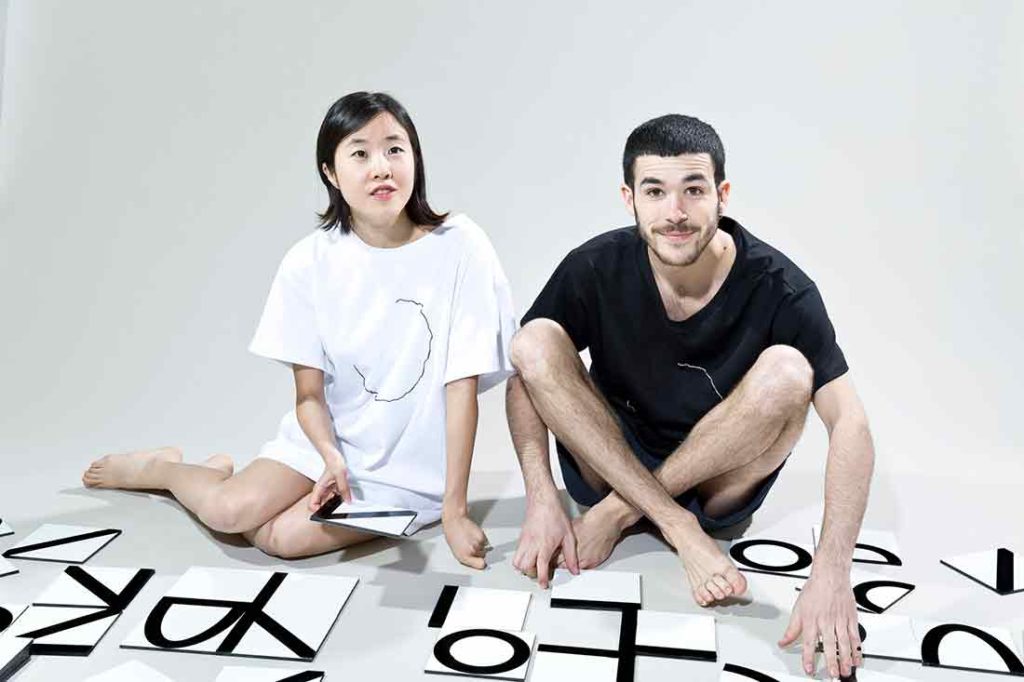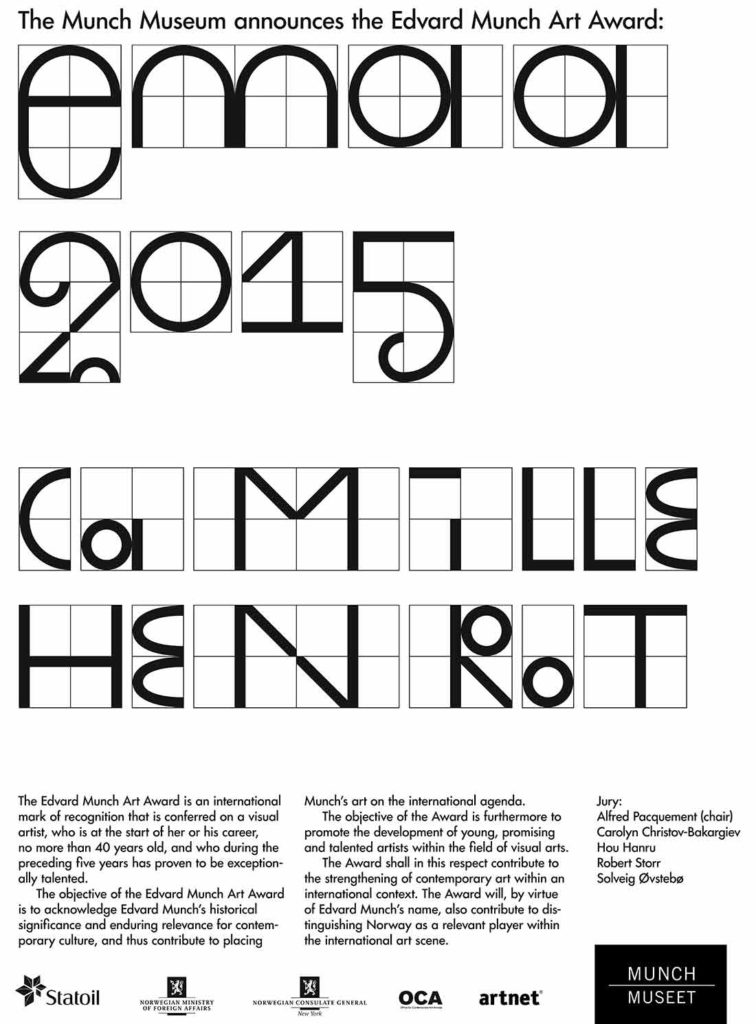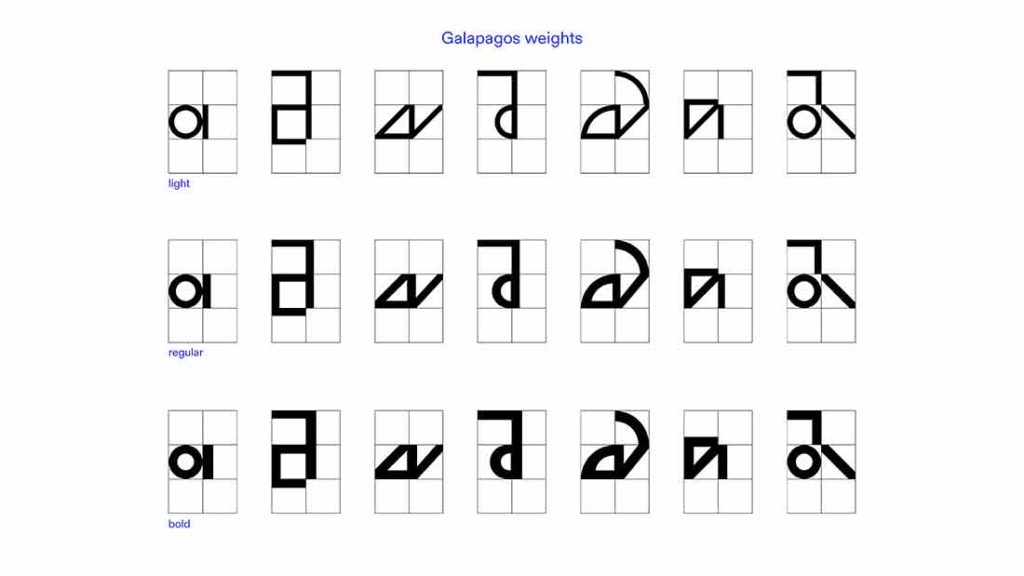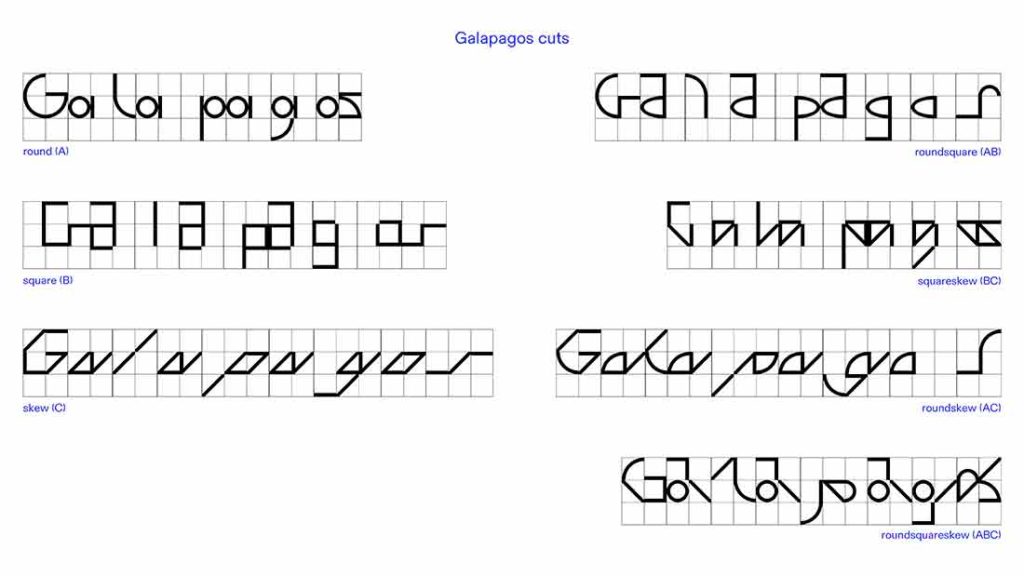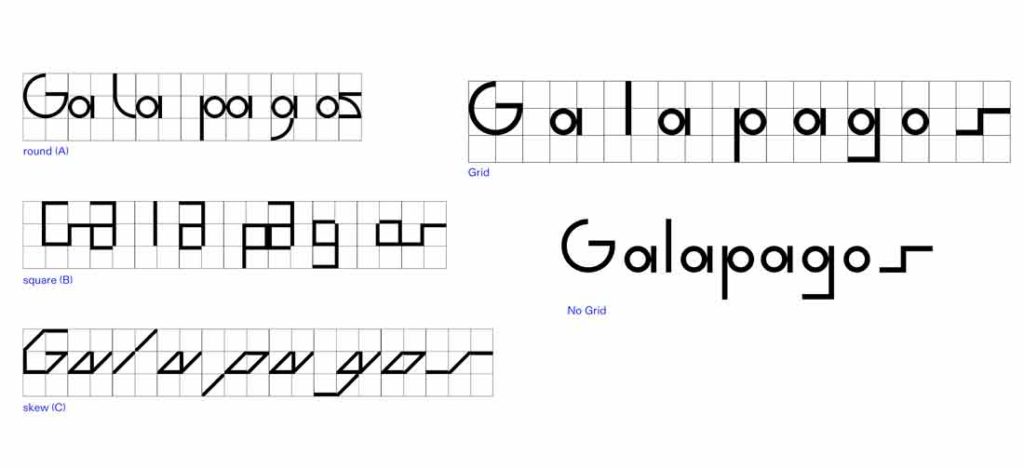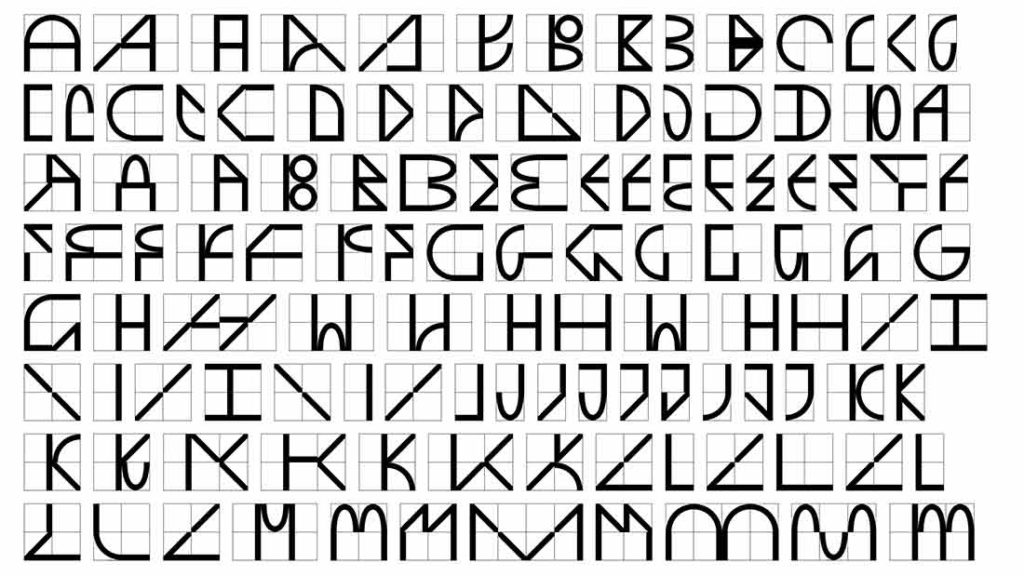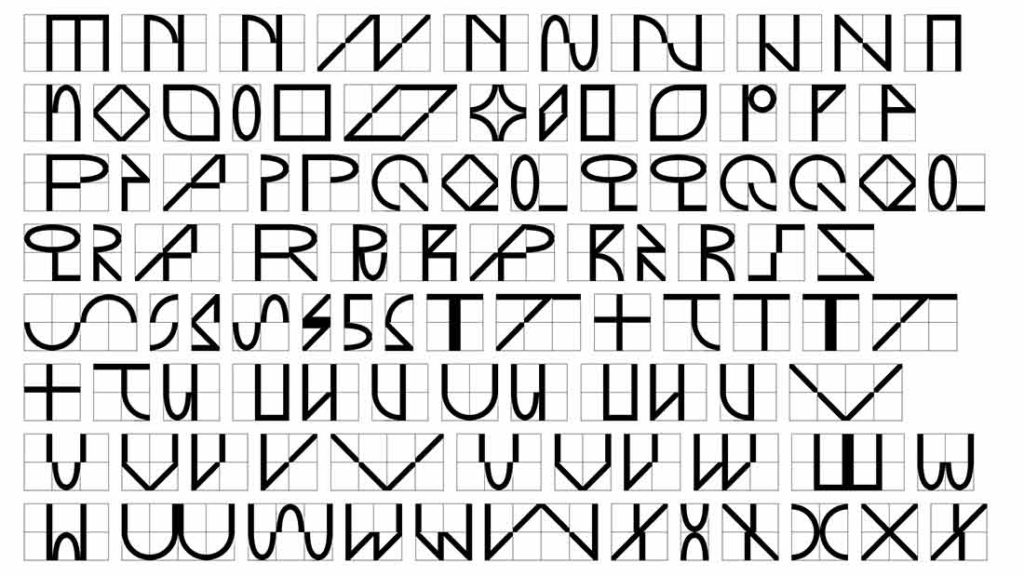
Name: Galapagos
Designer: Felix Salut in collaboration with Dinamo
Foundry: Dinamo
Release Date: December 2016
Back story: Galapagos is a modular typeface system that got its start as a physical board game made up of nine separate line segments—curved, straight, and circular— printed on square 15 x 15-cm cards that can be combined in an almost infinite number of ways to make letterforms.“The project was all about combinations and possibilities within a visual system. It was made to scribble, write, draw, create patterns, build, and invent,” says Salut. “After making the game, I immediately became interested in translating it into a digital form. With Dinamo, we first made a simple tool where you can just select the nine different shapes and rotate them to build your own forms or letters. We pushed the idea further to build a typeface where each character exists in multiple versions.” The original board game and an app will be available along with the font by the end of 2016.
Why’s it called Galapagos? Just as the Galapagos Islands are home to a vast number of unique species that were the focus of Charles Darwin’s evolutionary studies, the Galapagos typeface encompasses a range of unique characters whose forms evolve from one another.
What are its distinguishing characteristics? Overall Galapagos has a stark, futuristic, space-age feel. The most noticeable characteristic is the amount of variation in its appearance. There are so many options for each letter, it would be take a concerted effort to typeset the same block of text in the same way more than once. Wrap your head around this: its 42 differing cuts are classified by their basic forms: round, square, or skew; plus combinations called round square, square skew, round skew, and roundsquareskew; and on three weights (light, regular, and bold), with or without a grid behind the letter segments. Whew.
What should I use it for? It’ll work best in display environments that encourage avant-garde type treatments, and it’s great fun in an animated format such as this website, created by Salut together with Maria Barnas and Jakub Straka. Galapagos would be perfect for street signs on Mars.
Who’s it friends with? Something about the smallest round circular element and the overall geometry of Galapagos just screams, “I want to hang out with Futura!” Salut also likes to pair it with Programm Neue or Pareto.